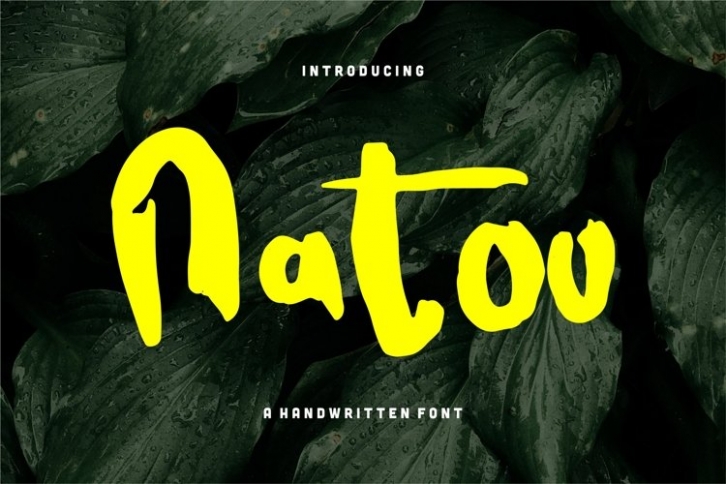
Natoo is a trendy and unique font with an authentic style. It was designed by plusstore and it's a great choice for creative people who need such a font. It was released on December 11, 2021 and the file size is 12.98 MB. Natoo will add an organic vibe to any design idea!